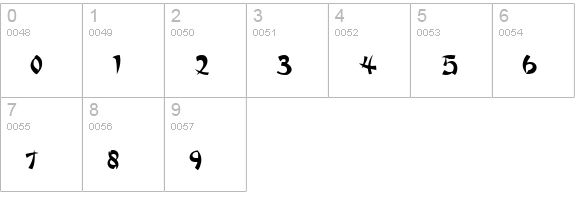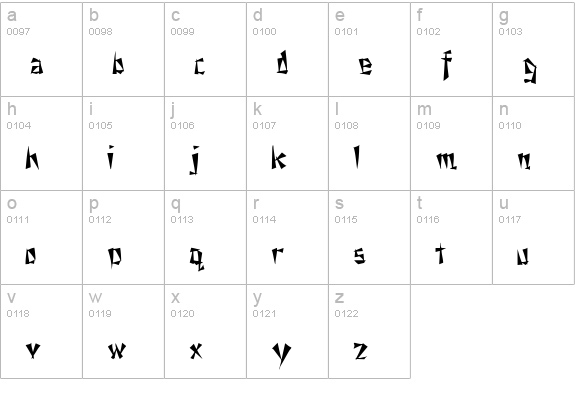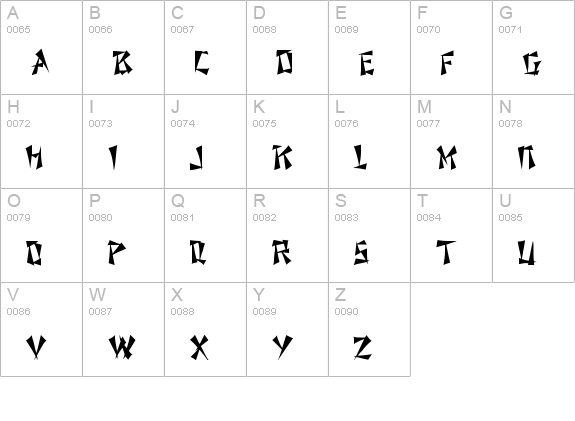
ChineseMenu Regular Font Details
ChineseMenu Regular is the standard, neutral variant in the ChineseMenu typeface family \xE2\x80\x94 well suited to general body text, paragraphs, and standard typographic work.
ChineseMenu Regular font is a beautifully crafted typeface that brings elegance and sophistication to your design projects. With its clean lines and classic appeal, this font is perfect for conveying a sense of tradition and authenticity. Whether you are designing a menu for a Chinese restaurant or creating promotional materials for a cultural event, ChineseMenu Regular font will add a touch of charm and sophistication to your work. Best of all, ChineseMenu Regular font is available for free download at FontsMarket.com. This means you can easily access this high-quality font without any cost, making it a valuable addition to your design toolkit. Don't miss out on the opportunity to enhance your projects with the timeless beauty of ChineseMenu Regular font - download it today and start creating stunning designs with ease!